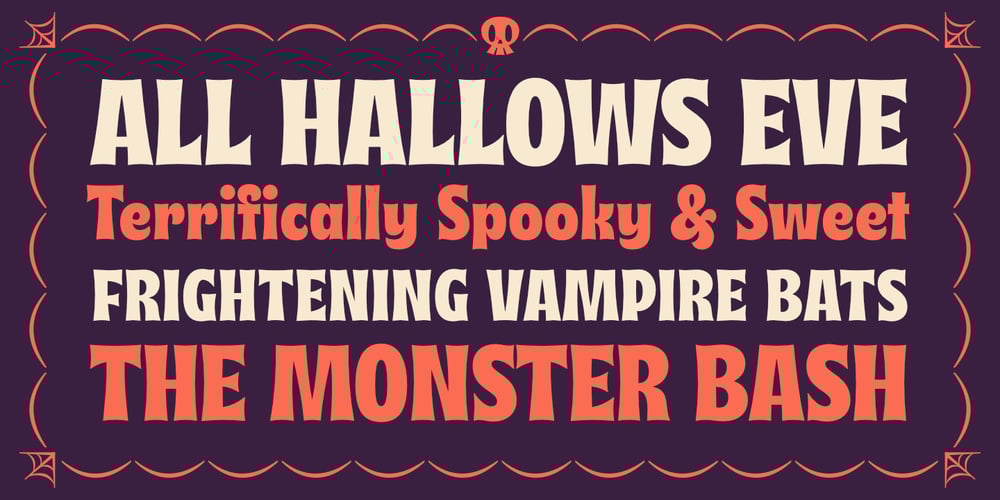
Musubi Font Family was designed by Jonathan Ball and published by Jonathan Ball. Musubi contains 1 styles and family package options. Musubi is juicy, flavorful display face inspired Tiki culture. Use it to make a big splash on posters and signage. This swinging face’s special features include Small Capitals, tropical symbols, and decorative borders. Its funky and flared design is also perfect for a spooky Halloween bash!